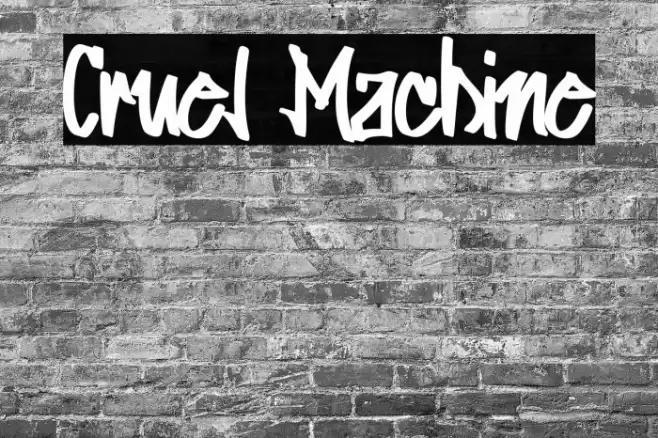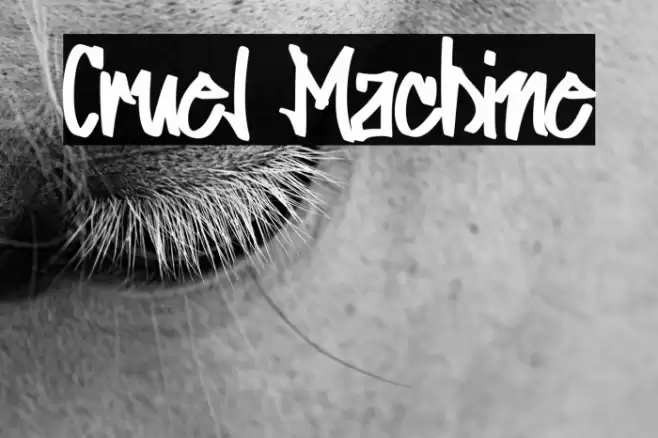
Cruel Machine Font
Cruel Machine Description
This font exhibits a bold and dynamic handwritten style, characterized by its expressive and slightly chaotic appearance. The letters are crafted with a brush-like texture, giving them a raw and energetic feel. The uppercase and lowercase letters maintain a consistent flow, while the numbers and special characters integrate seamlessly into the overall design. The font's unique personality is evident in its irregular shapes and varying stroke widths, which contribute to its lively and informal aesthetic.
| Use Case | Logos, Headlines, Posters |
| Proposed Projects | Ideal for projects that require a personal touch, such as greeting cards, posters, and creative branding. Its energetic style is also suitable for music album covers and artistic event promotions. |